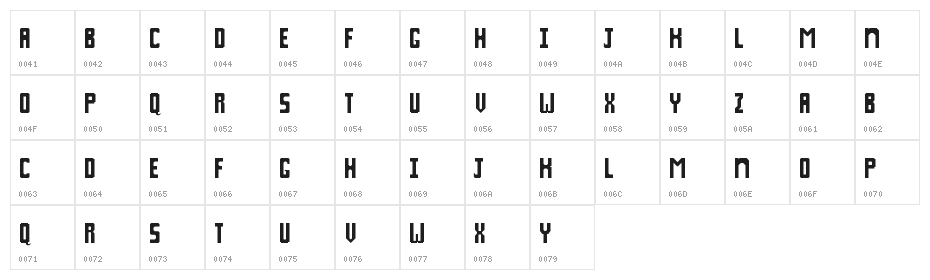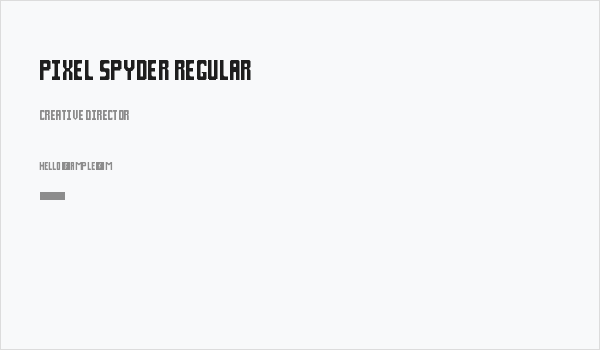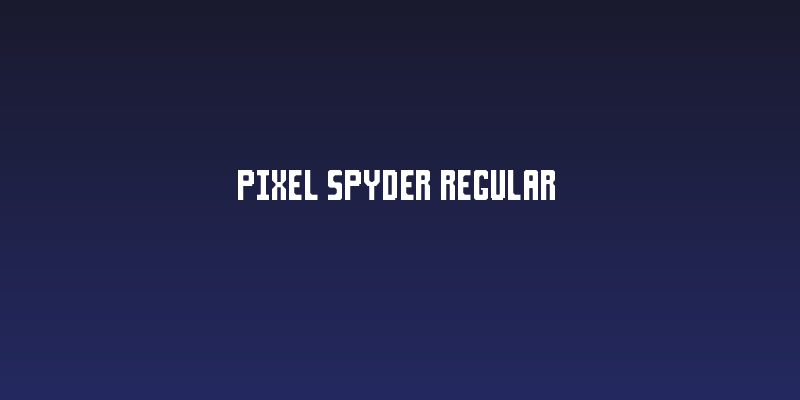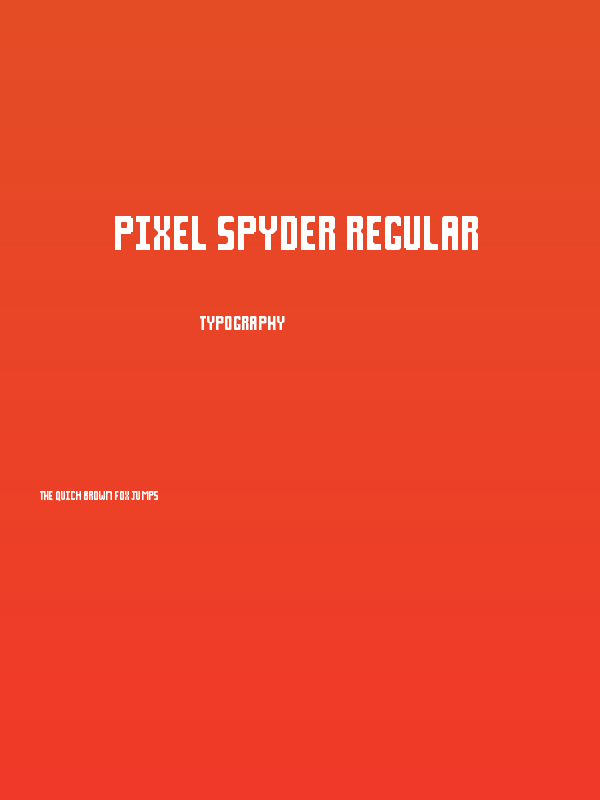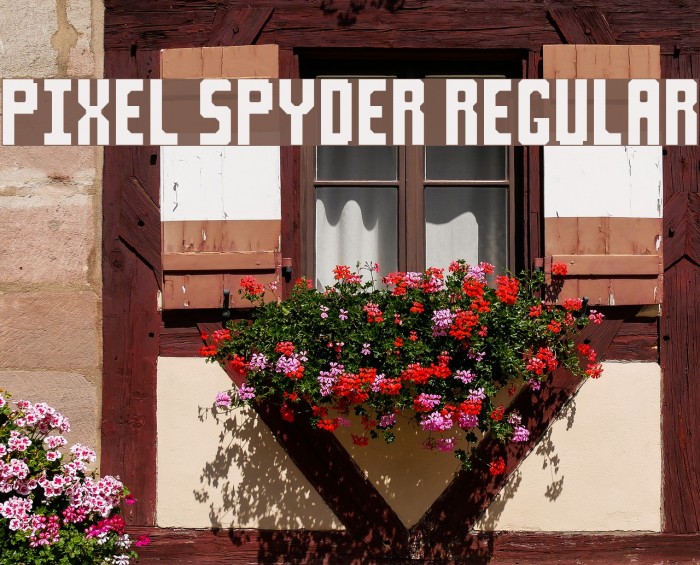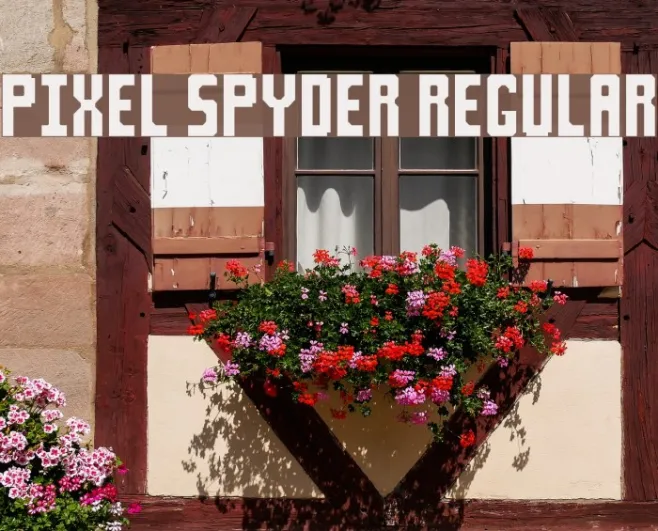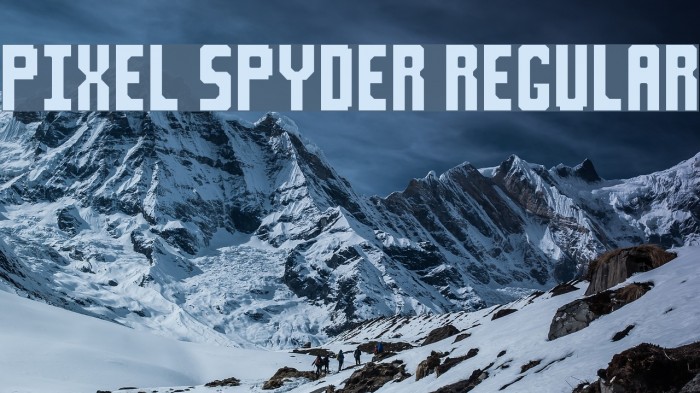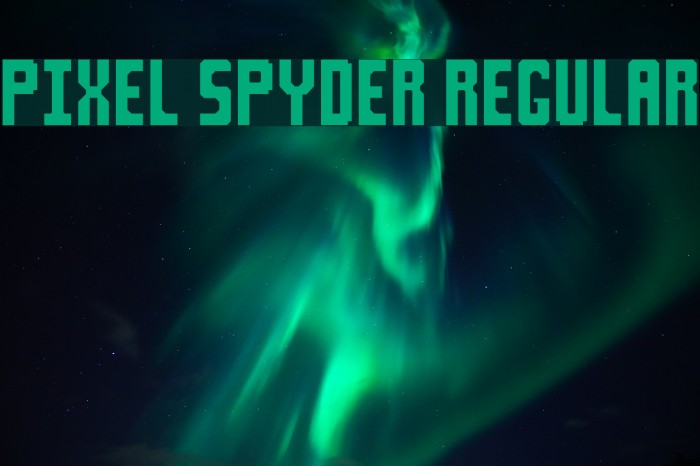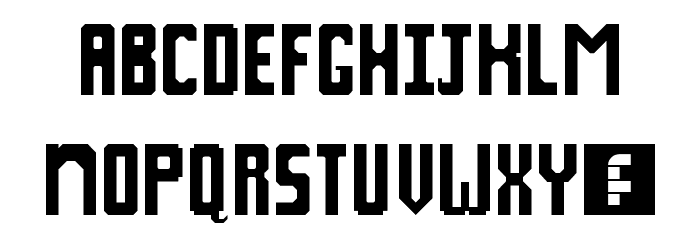
Pixel Spyder Regular Font
Pixel Spyder Regular Description
This font features a bold, geometric design with a pixelated aesthetic, reminiscent of early digital or arcade game typography. The characters are constructed with sharp, angular lines and uniform stroke widths, creating a blocky and robust appearance. The uppercase and lowercase letters maintain a consistent height, contributing to a monospaced feel, although the font is not strictly monospaced. The numerals and special characters follow the same stylistic approach, ensuring a cohesive look across all glyphs. This font's distinctive style makes it ideal for projects that require a retro or tech-inspired theme.